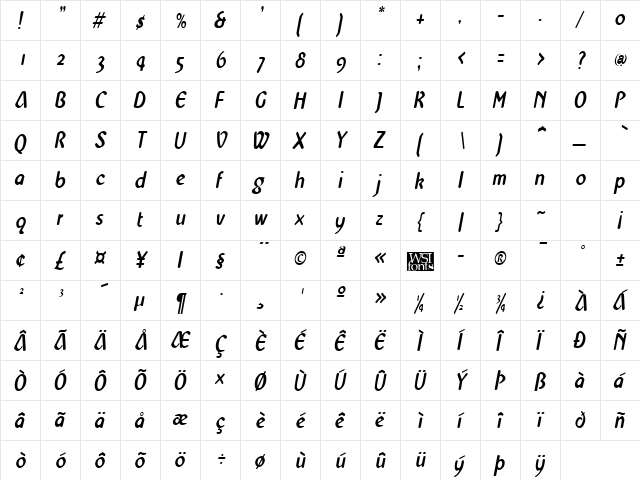
WestminsterNarrow Italic Font Preview
Design Context for WestminsterNarrow Typeface
WestminsterNarrow is a composed and adaptable typeface that performs quietly and consistently across a wide range of design contexts. The slanted form adds forward momentum and visual energy. The condensed width makes it efficient for tight spaces without sacrificing legibility.